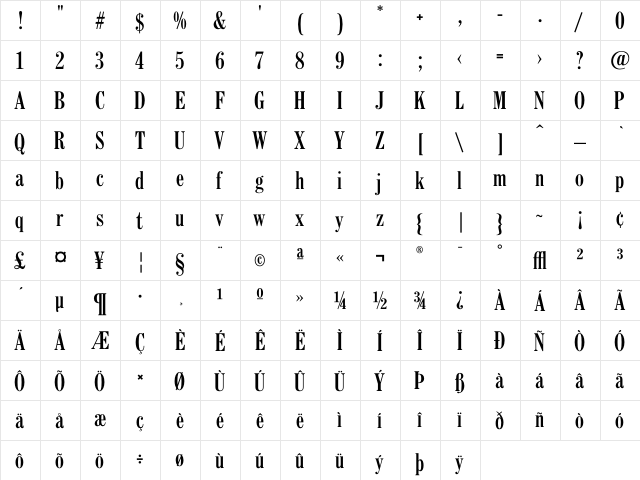
CenturyFB BoldCondensed
Design Context for CenturyFB Typeface
CenturyFB offers clean, dependable letterforms without strong stylistic allegiance, making it a practical choice for designers who need flexibility. The heavy weight commands attention and anchors typographic hierarchies. Its narrow stance lets it pack a punch even in space-constrained designs.